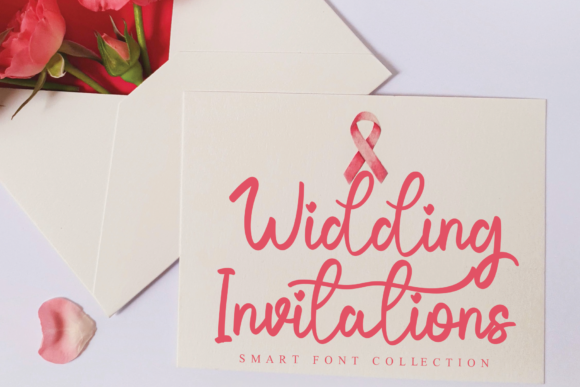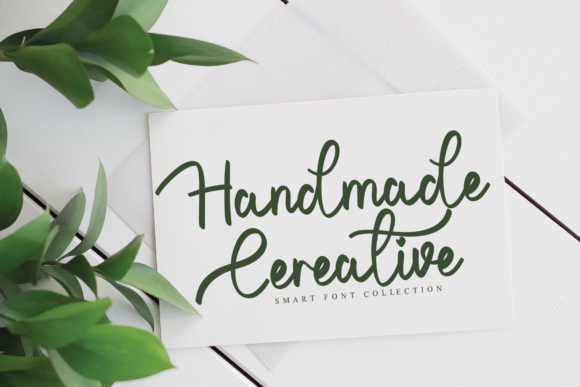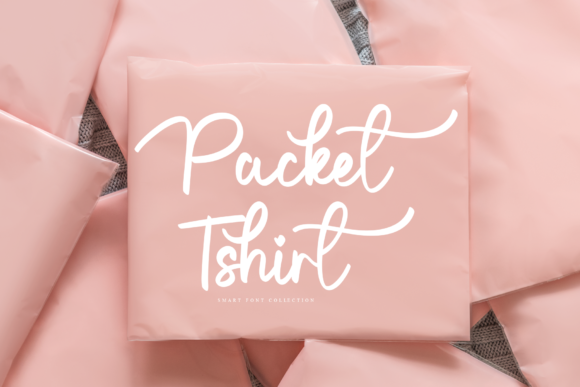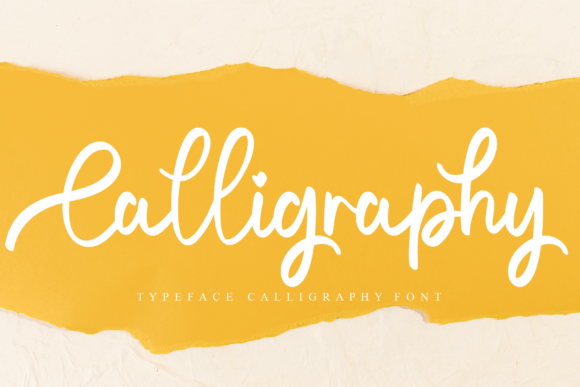
Elevate Your Designs with the Elegance of Calligraphy Font
Calligraphy is a beautiful, light handwritten font with a unique feel and a stunning impact. It will add a luxury spark to any design project that you wish to create! Whether you’re a designer, crafter, or simply someone who appreciates the art of beautiful writing, calligraphy fonts are an excellent way to add a touch of elegance and sophistication to your work.
What is Calligraphy Font?
Calligraphy font refers to a type of font that mimics the style of calligraphy, an art form that involves decorative handwriting with a brush or pen. Calligraphy fonts are designed to replicate the flowing, cursive strokes and elegant letterforms that are characteristic of traditional calligraphy. These fonts are often used in design projects where a high-end, luxurious look is desired, such as in branding, packaging, and wedding stationery.
The Beauty of Calligraphy Fonts
Calligraphy fonts are renowned for their beauty and versatility. They can add a touch of whimsy and romance to any design project, making them perfect for a wide range of applications. Here are some of the key features that make calligraphy fonts so stunning:
• Unique letterforms: Calligraphy fonts feature unique and intricate letterforms that are designed to mimic the strokes of a brush or pen. Each letter is carefully crafted to create a sense of flow and movement.
• Flowing connections: Calligraphy fonts often feature flowing connections between letters, creating a sense of continuity and elegance.
• Expressive strokes: Calligraphy fonts are characterized by expressive strokes that convey a sense of energy and movement.
Uses of Calligraphy Fonts
Calligraphy fonts are incredibly versatile and can be used in a wide range of design projects. Here are some popular uses of calligraphy fonts:
• Wedding stationery: Calligraphy fonts are a popular choice for wedding stationery, including invitations, save-the-dates, and thank-you cards.
• Branding and packaging: Calligraphy fonts can add a touch of luxury and sophistication to branding and packaging design.
• Signage and displays: Calligraphy fonts can be used to create eye-catching signage and displays for events, exhibitions, and retail environments.
• Digital design: Calligraphy fonts can be used in digital design, including social media graphics, email headers, and website titles.
Tips for Using Calligraphy Fonts
Here are some tips for using calligraphy fonts effectively in your design projects:
• Use them sparingly: Calligraphy fonts can be overwhelming if used excessively. Use them sparingly to create a focal point in your design.
• Pair them with simple fonts: Pair calligraphy fonts with simple fonts to create contrast and visual interest.
• Experiment with colors: Calligraphy fonts can be used with a range of colors to create different effects. Experiment with different colors to find the perfect combination for your design.
Calligraphy fonts are a beautiful and elegant way to add a touch of luxury to your design projects. With their unique letterforms, flowing connections, and expressive strokes, calligraphy fonts are perfect for a wide range of applications, from wedding stationery to branding and packaging. By using calligraphy fonts effectively and following the tips outlined above, you can create stunning designs that are sure to impress.
Get Creative with Calligraphy Fonts
If you’re looking to add a touch of elegance and sophistication to your design projects, consider using calligraphy fonts. With their versatility and beauty, calligraphy fonts are sure to elevate your designs and leave a lasting impression on your audience. So why not get creative with calligraphy fonts today and see the impact they can have on your designs?